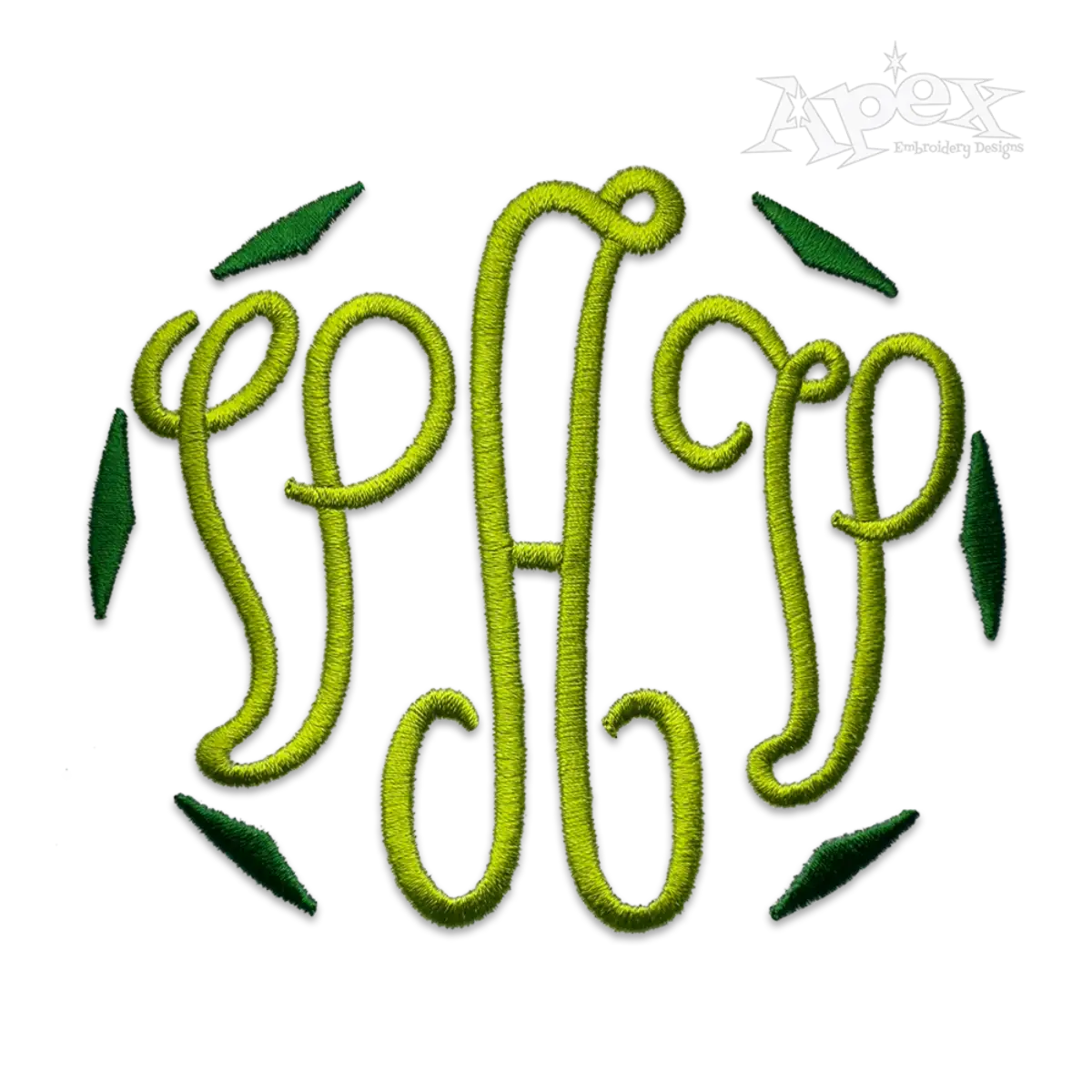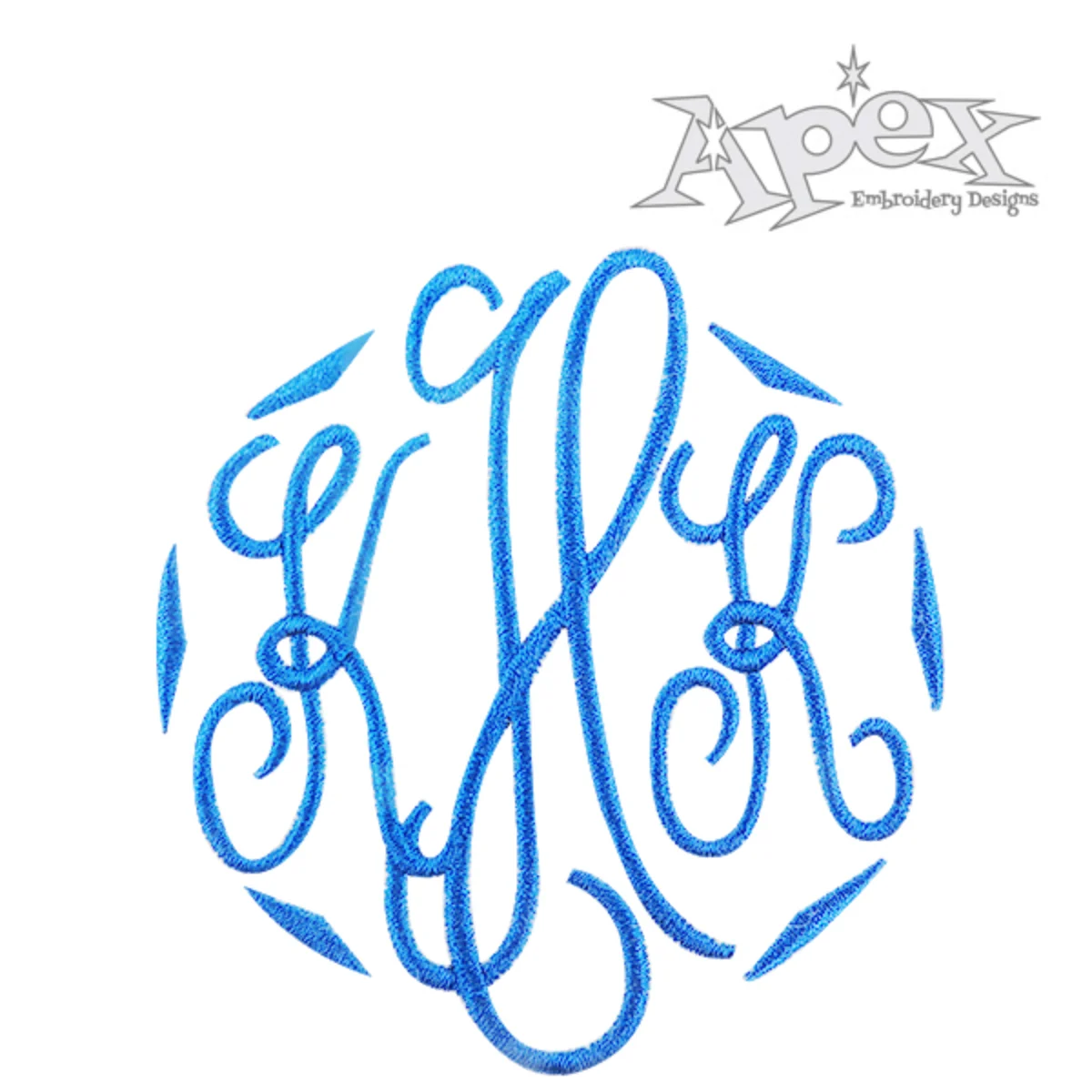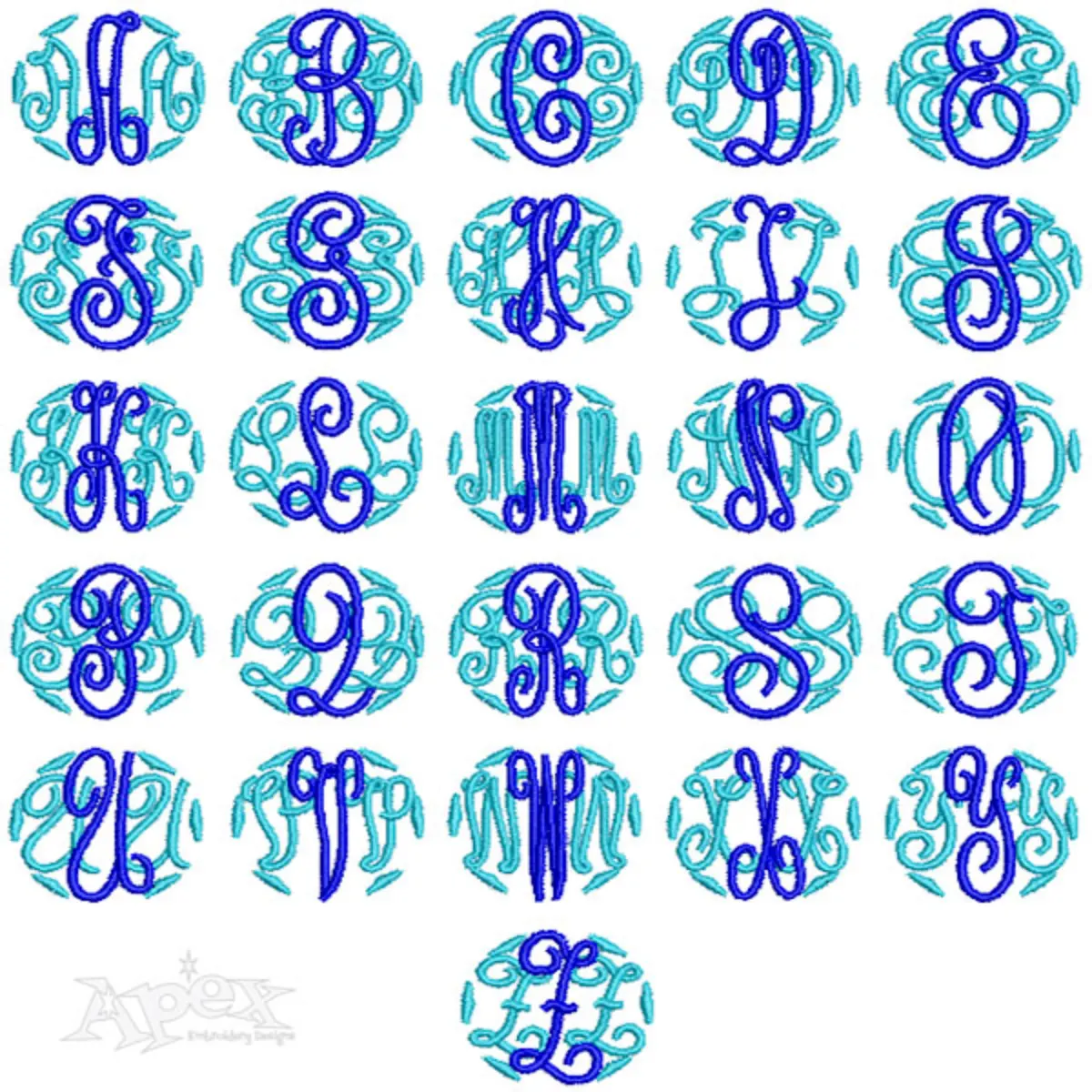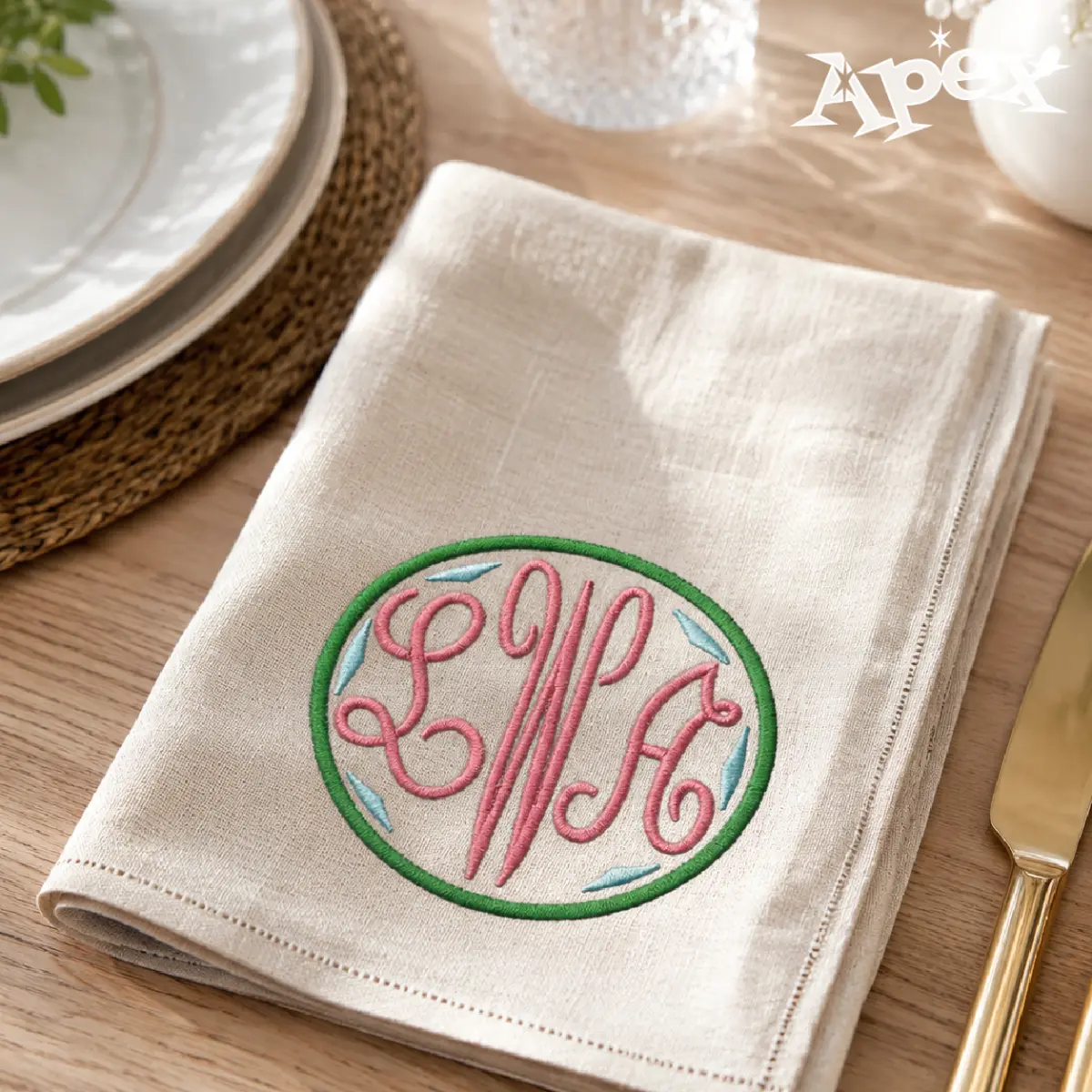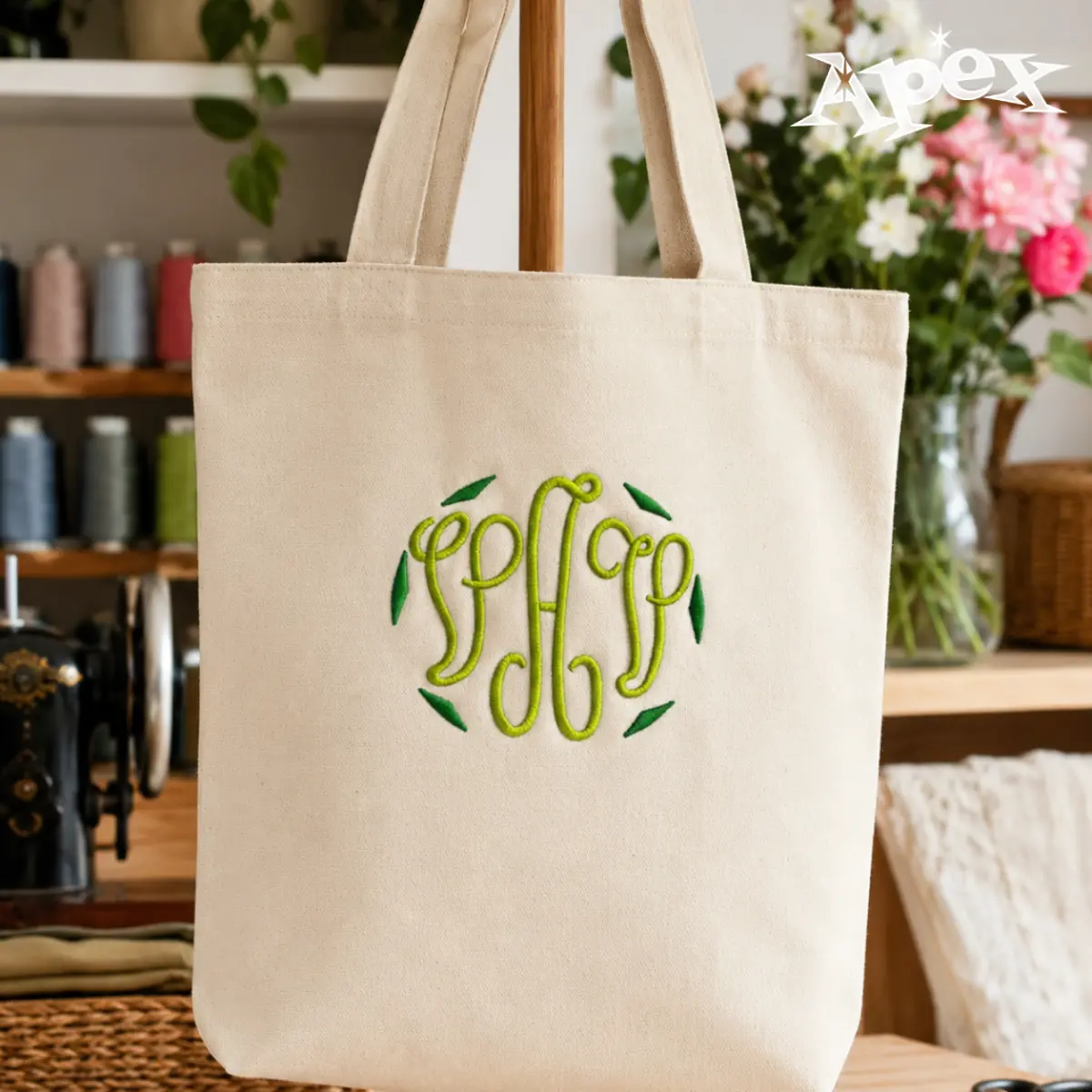
Sprinkles Monogram Embroidery Fonts
These Sprinkles Monogram Embroidery Fonts feature a cute sprinkle-inspired lettering style that works beautifully for both simple monogram projects and decorative personalized gifts. Each size includes left, right, and middle letters, making it easy to create balanced 3-letter monograms for a wide range of embroidery items.
Font Set Details
- Each size includes left letters, right letters, and middle letters
- Great for traditional 3-letter monograms
- Fun sprinkle-style alphabet for machine embroidery
- Suitable for both kids? projects and personalized gifts